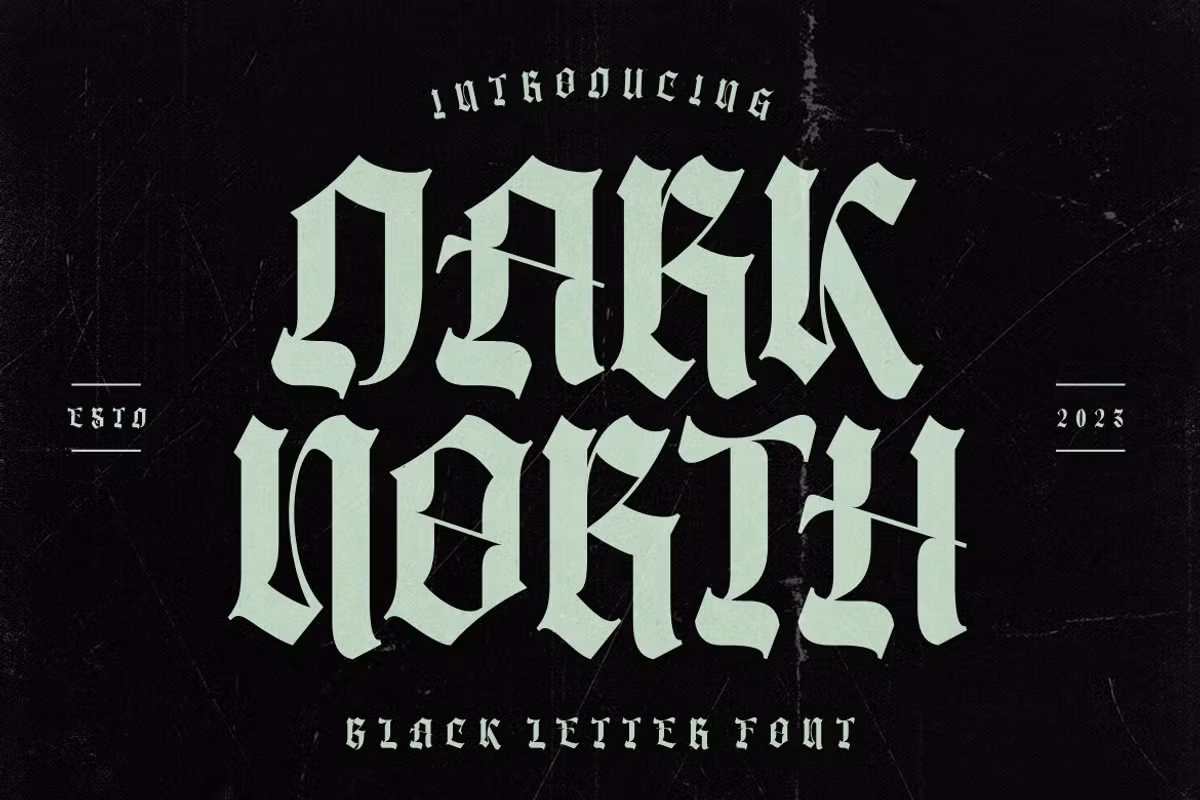
Dark North - Blackletter Font Free Download is a bold, gothic-inspired typeface that captures the intricate, dramatic style of traditional blackletter fonts. With its sharp lines, dense forms, and ornate detailing, this font is perfect for designs that require a strong, historical, or medieval feel, including logos, album covers, book titles, posters, and branding for niche projects.
The font’s elaborate design makes it ideal for projects with a dark, mysterious, or fantasy theme, giving your typography a timeless and powerful presence. Whether you’re working on gothic, vintage, or occult-inspired designs, Dark North brings a sense of depth and history to your work.